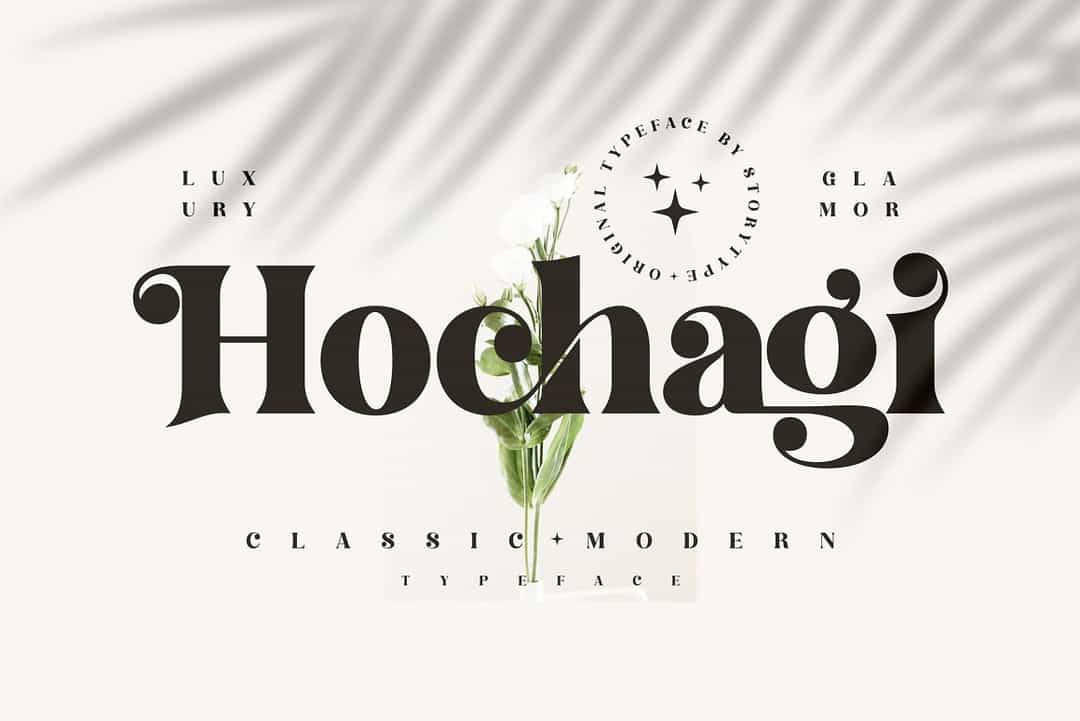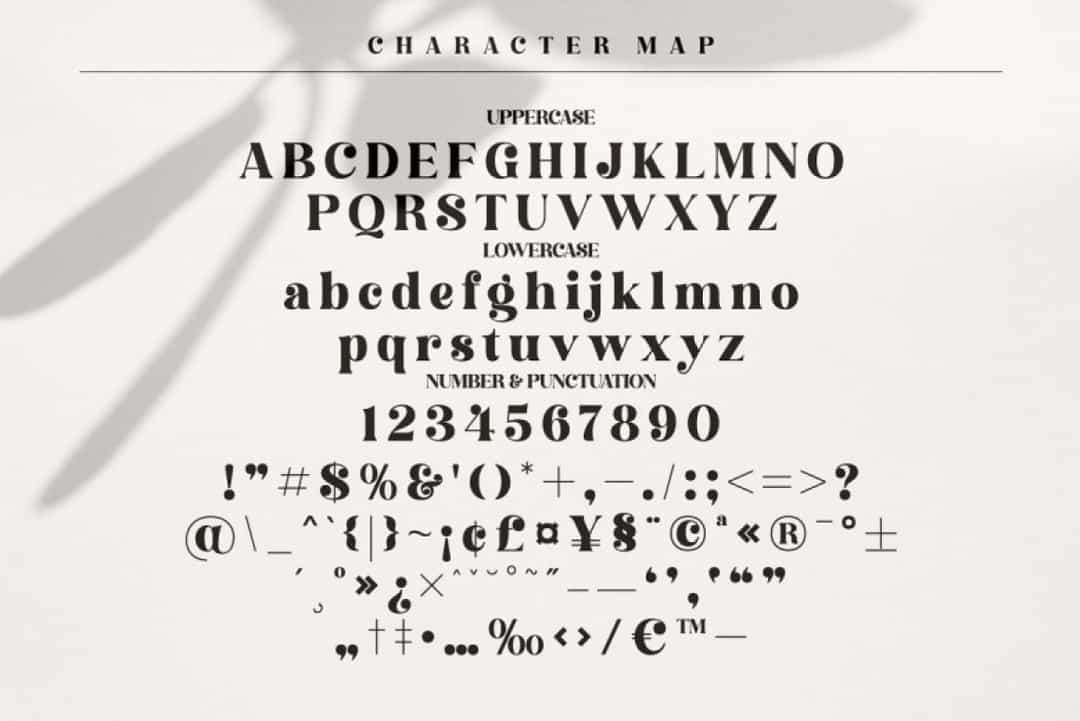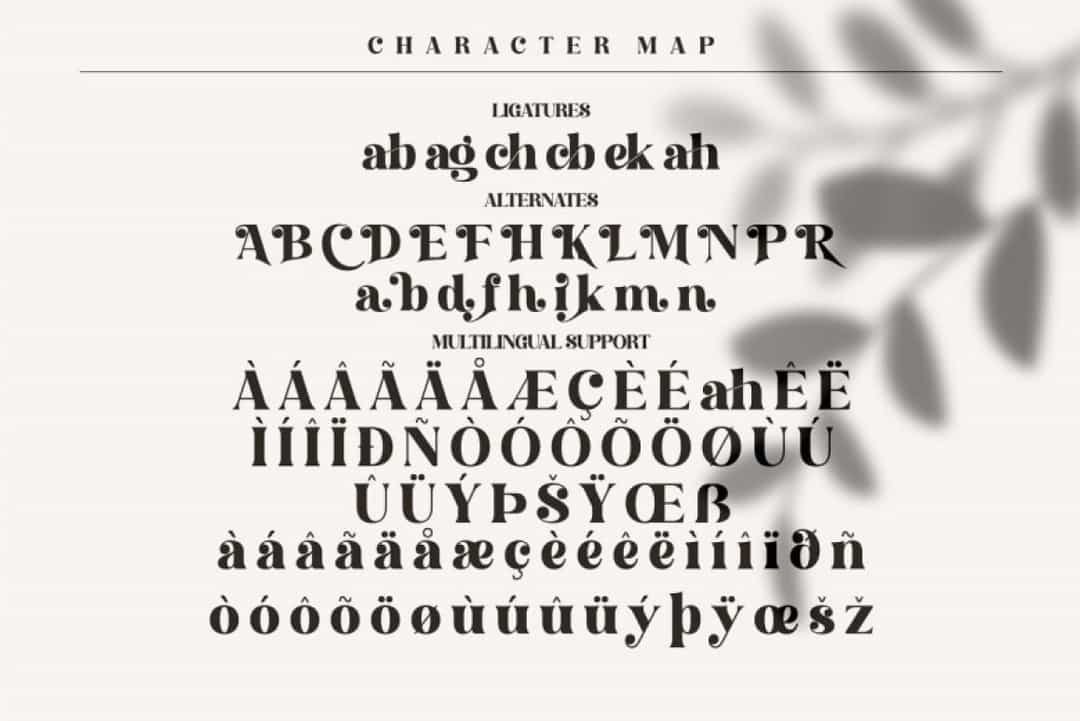
StoryType’s Hochagi Serif font is an impressive and unique modern serif bold font designed with its characteristic style and modern appearance, ideal for use in logo design, movie/book name designs, fashion brand clothing designs, magazines lettering or quotes among many other applications.